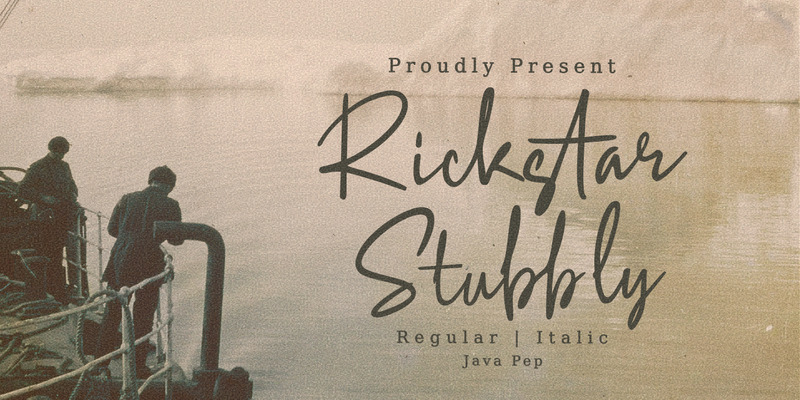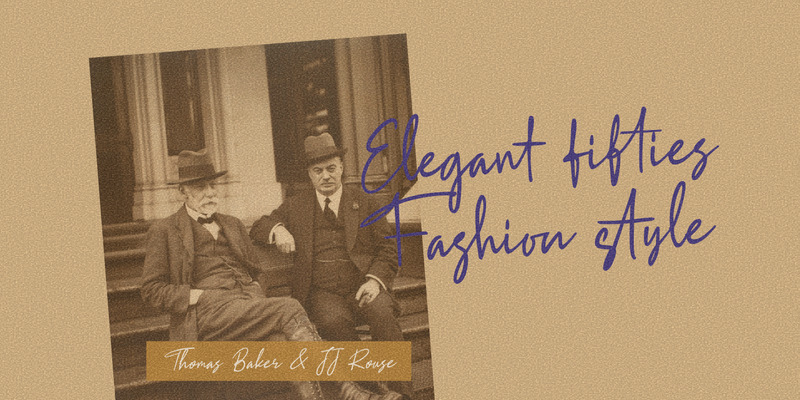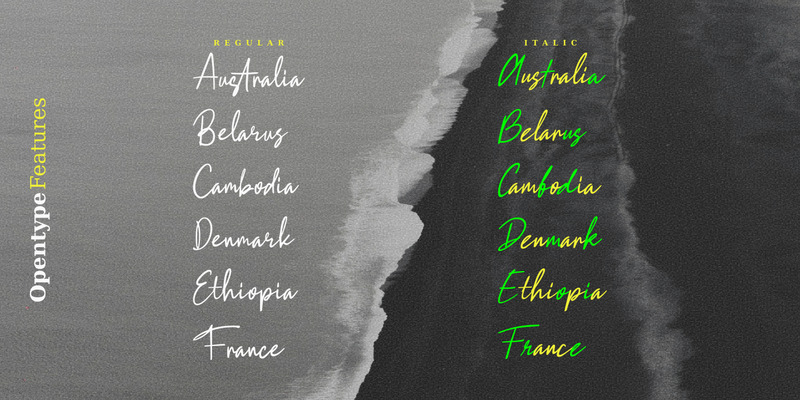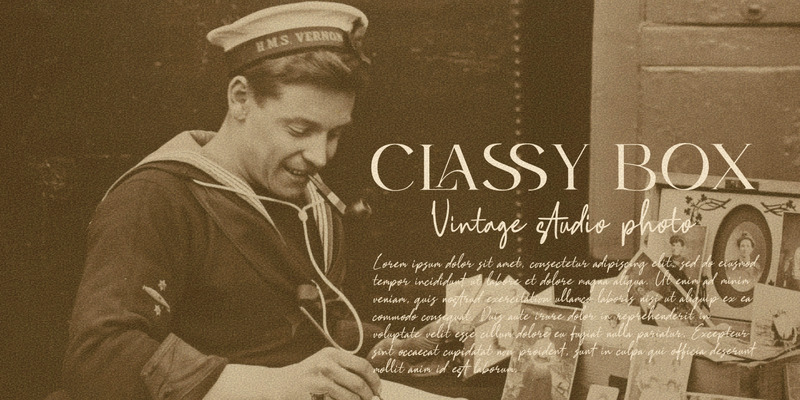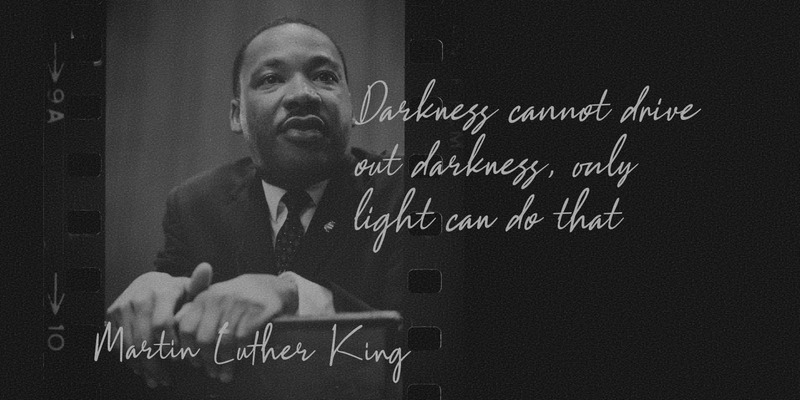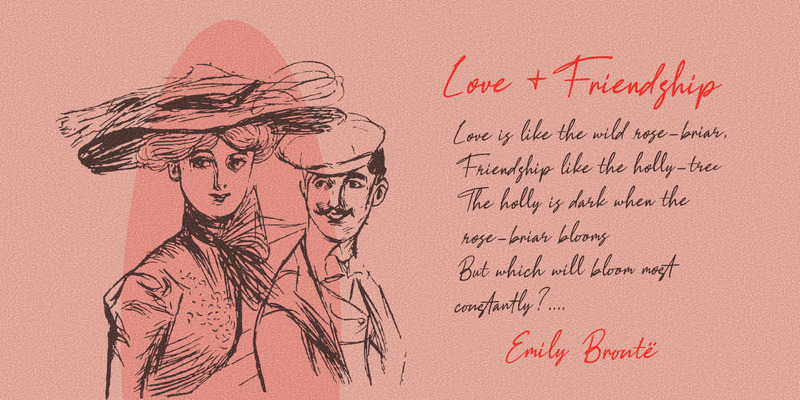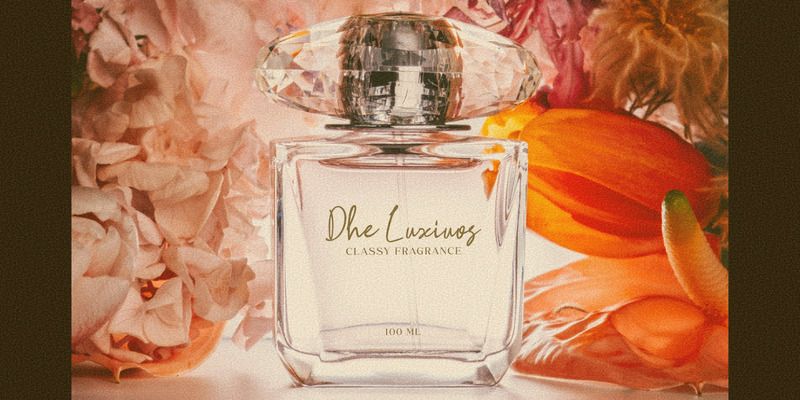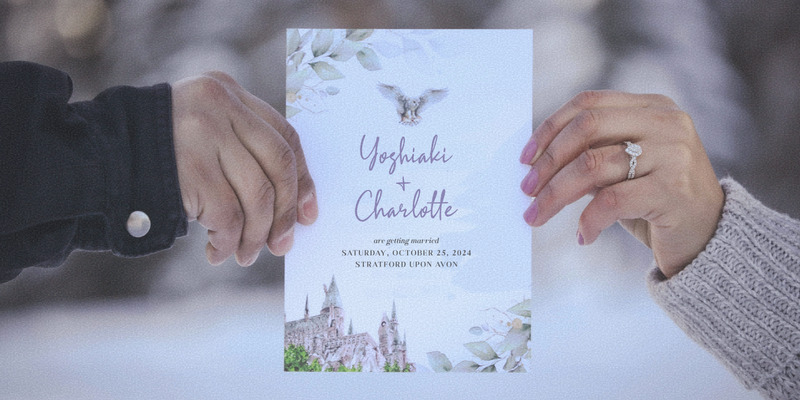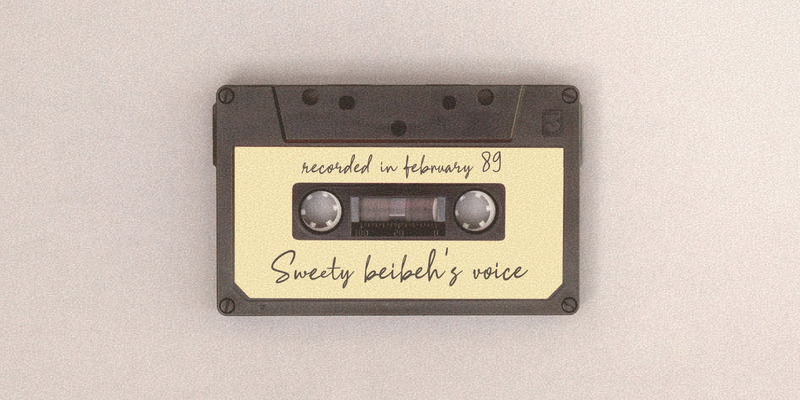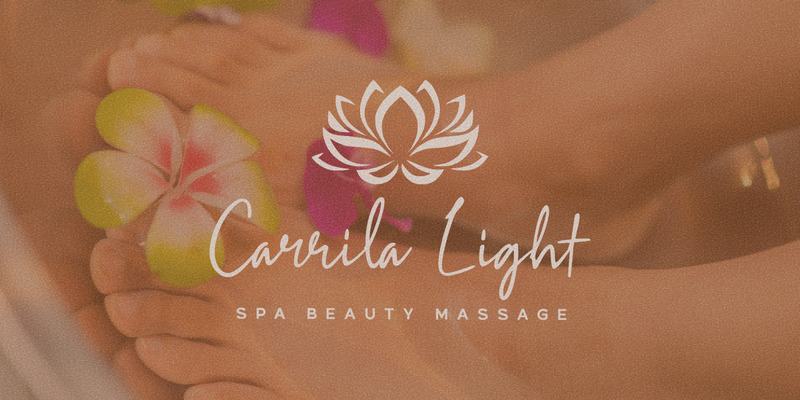
Rickstar Stubbly / Elegant Typeface
Proudly present an elegant script typeface called Rickstar Stubbly font that has 2 style-linked, regular and italic. Rickstar Stubbly font comes with lots of alternate glyphs such as uppercase and lowercase, so you can mix and match to make more outstanding looks. This font is suitable for biz cards, branding, quote text, logo font, scrapbooks, greeting cards, etc.
• Multilingual Support
• Uppercase and lowercase
• Numeral and punctuation